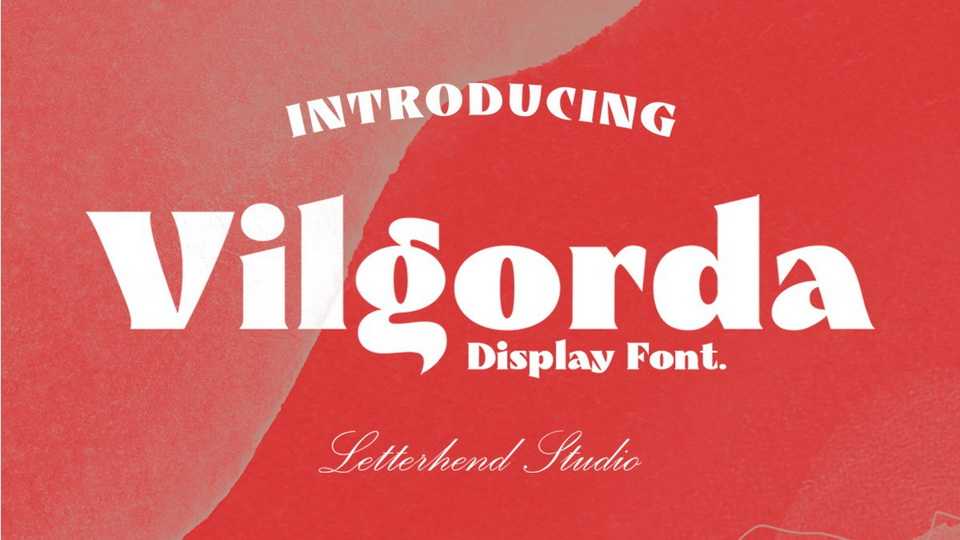
Download Vilgorda font, a bold display typeface with a unique and impressive appearance. Vilgorda font was perfectly designed to be applied for high impact, especially in logos, headlines, signage and more.